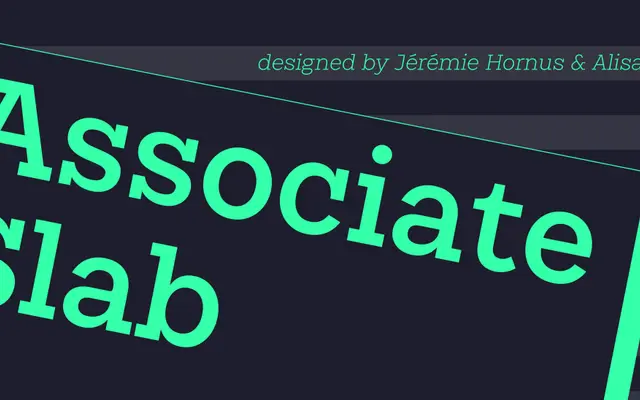
Associate Slab
A five-weight slab serif from Indian Type Foundry, part of a wider Associate superfamily that also covers sans, mono and stencil variants.
Ten styles span Extralight through Bold with matching italics, making it a practical slab for text and editorial work. It sits within the broader Associate family alongside Associate Sans, Associate Mono and Associate Sans Stencil, suggesting a coherent design system built for versatile deployment. The range covers standard Latin and is sold per style or as a complete ten-font bundle.
A slab serif with five weights and matching italics, part of a wider Associate family that includes sans, mono and stencil variants, indicating a purposeful workhorse slab design.